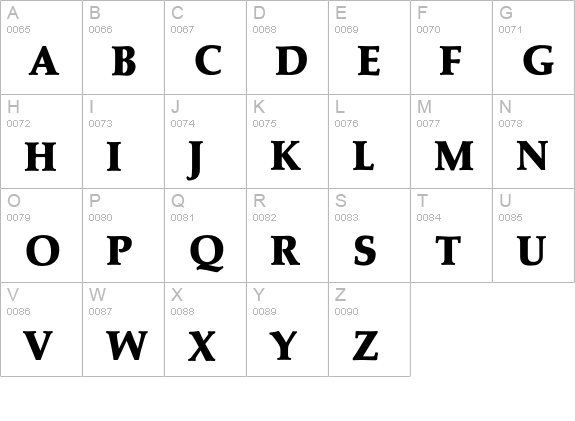
Marath-ExtraBold Font Details
Marath-ExtraBold is an extra-heavy, attention-grabbing variant in the Marath typeface family \xE2\x80\x94 well suited to high-impact headlines, posters, and bold branding.
Marath-ExtraBold is a striking and powerful font that demands attention with its bold and robust presence. With its thick and sturdy letterforms, this font exudes a sense of strength and confidence, making it perfect for creating impactful headlines, logos, and branding materials. The Marath-ExtraBold font is designed with utmost precision, ensuring that each character is crafted with care and attention to detail. Its clean lines and distinct shapes give it a modern and contemporary aesthetic, while its bold weight adds a touch of authority and impact. One of the best features of the Marath-ExtraBold font is that it is free for everyone to use. Whether you are a professional designer or a casual user, you can download this font for free at FontsMarket.com. This means that you can access and use this powerful and eye-catching font without any limitations or restrictions. The Marath-ExtraBold font is incredibly versatile and can be used in a wide range of projects. From print materials such as posters, brochures, and flyers, to digital designs like websites, social media graphics, and presentations, this font will help you make a bold statement and leave a lasting impression. Overall, the Marath-ExtraBold font is a must-have for anyone looking to add a touch of boldness and impact to their designs. Its free availability at FontsMarket.com makes it easily accessible to all, allowing you to elevate your visual creations and communicate your message with confidence and style.